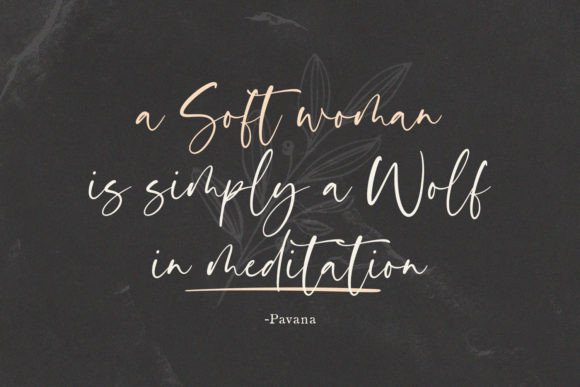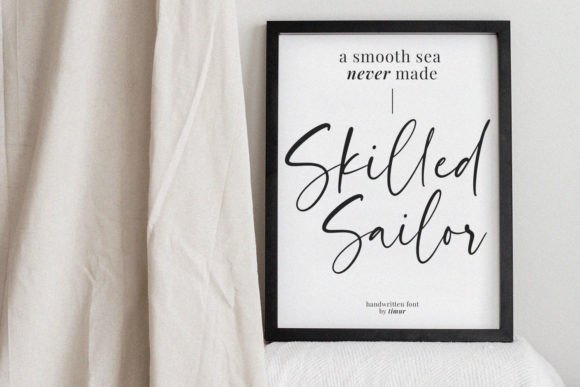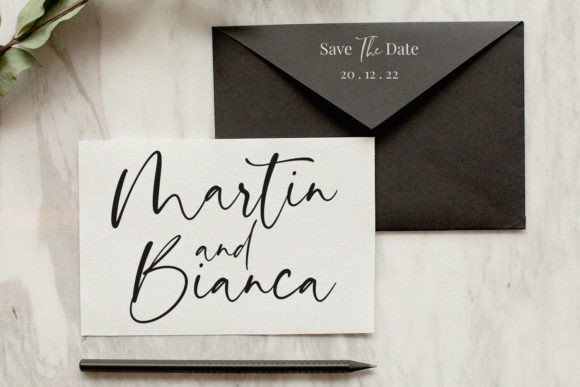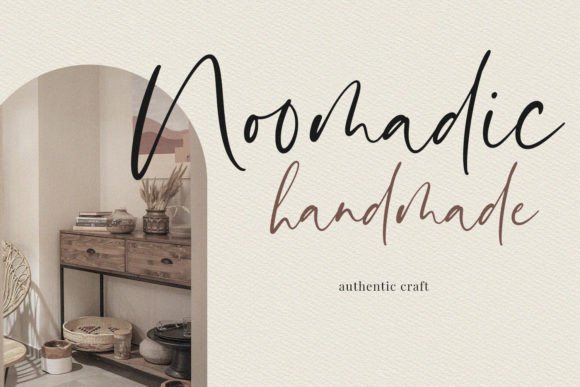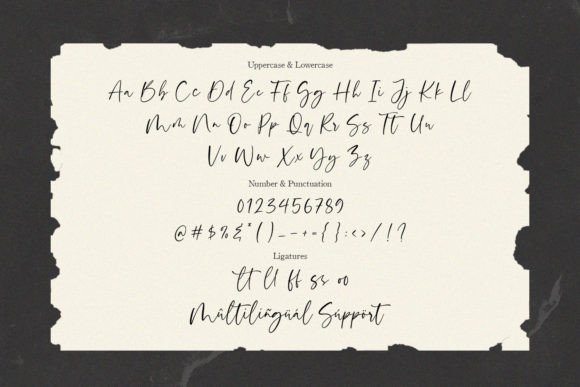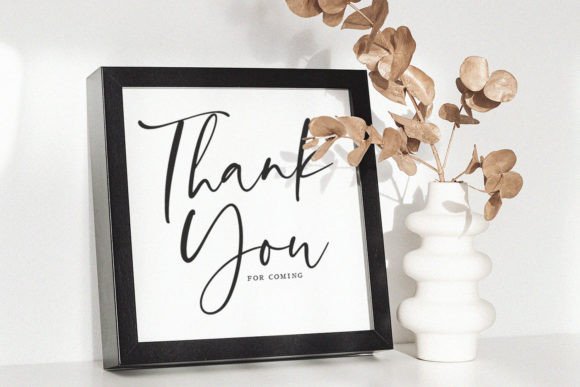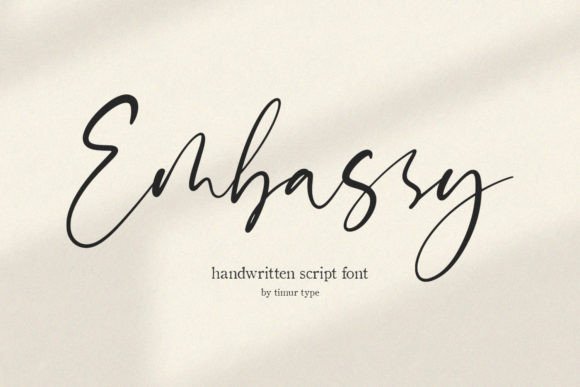
Introducing Embassy Font: Elevate Your Designs with Elegance and Sophistication
In the world of typography, a font can make or break a design. It’s the foundation upon which the entire visual identity is built. For designers and crafters, finding the perfect font that adds a touch of elegance and sophistication to their creations can be a daunting task. However, if you’re looking for a font that can instantly elevate your designs, look no further than Embassy Font. This dazzling script font is neatly crafted and highly detailed, making it a wonderful asset to your font library.
What Makes Embassy Font Stand Out?
Embassy Font is more than just a beautiful script font. Its unique characteristics make it an ideal choice for a wide range of design projects. Here are some of the key features that set it apart:
- Neatly Crafted and Highly Detailed: Embassy Font is meticulously designed to ensure that every letter, every curve, and every swirl is perfect. The attention to detail is evident in its clean lines and elegant strokes.
- Versatile: Whether you’re working on a branding project, a wedding invitation, or a packaging design, Embassy Font adapts seamlessly to any topic or theme.
- Script Elegance: The script style of Embassy Font adds a touch of sophistication and luxury to any design. It’s perfect for creating high-end visuals that require a level of refinement.
Why Choose Embassy Font for Your Designs?
There are countless fonts available for designers, but Embassy Font stands out for several reasons:
- Enhances Any Creation: The versatility of Embassy Font means it can enhance any creation, from digital content to print materials. Its elegant appearance instantly elevates the design, making it more engaging and visually appealing.
- Easy to Read: Despite its script nature, Embassy Font is remarkably legible. This makes it an excellent choice for body text as well as headings, ensuring that your message is conveyed clearly and effectively.
- Unique and Memorable: In a sea of generic fonts, Embassy Font offers a unique aesthetic that can help your designs stand out. Its distinctive look makes it more memorable, which is crucial for branding and advertising.
How to Use Embassy Font Effectively in Your Designs
To make the most of Embassy Font, consider the following tips:
- Pair it with Complementary Fonts: For maximum impact, pair Embassy Font with simpler fonts that complement its elegance. A sans-serif font for body text can create a beautiful contrast.
- Use it for Headings and Titles: Embassy Font shines when used for headings and titles. Its decorative nature draws attention and adds a level of sophistication to your design.
- Experiment with Colors and Effects: Don’t be afraid to experiment with different colors and effects. Embassy Font looks stunning with subtle shadows, metallic finishes, or rich, bold colors.
Embassy Font is a dazzling script font that can add a touch of elegance and sophistication to any design. Its neat craftsmanship, high level of detail, and versatile nature make it an invaluable asset to any designer’s font library. Whether you’re working on a branding project, a creative endeavor, or simply looking to elevate your visual identity, Embassy Font is an excellent choice. With its unique aesthetic, readability, and potential to make your designs stand out, Embassy Font is sure to become a favorite in your collection.
So, why settle for ordinary when you can create something extraordinary with Embassy Font? Dive into the world of elegant typography and let Embassy Font be the key to unlocking your design’s full potential.